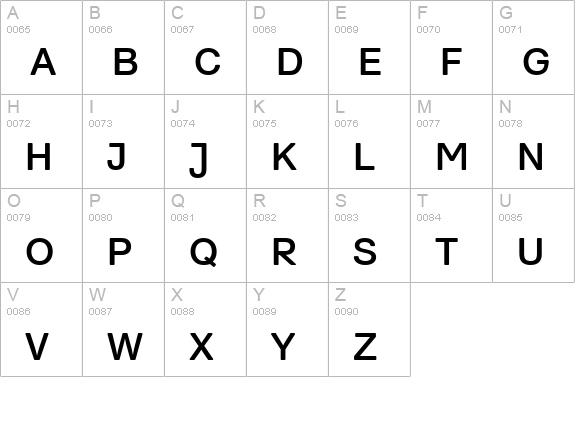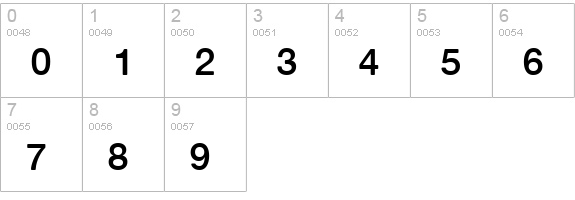
SchulVokalDotless Font Details
SchulVokalDotless font is a modern and stylish typeface that is perfect for adding a touch of sophistication to your designs. This font features clean lines, smooth curves, and a unique dotless design that sets it apart from other fonts. SchulVokalDotless font is not only visually appealing, but it also offers excellent readability, making it ideal for a wide range of applications. Whether you're creating a logo, designing a website, or crafting a print advertisement, this font will ensure that your message is communicated effectively and effortlessly. One of the best things about SchulVokalDotless font is that it is free. That's right, you can download this amazing font at absolutely no cost from FontsMarket.com. This means that you can enhance your designs with a high-quality, professional-looking font without breaking the bank. With its versatility and elegance, SchulVokalDotless font is suitable for both personal and commercial projects. Whether you're a graphic designer, a small business owner, or a student working on a school project, this font will elevate your work to new heights. So why wait? Download SchulVokalDotless font for free at FontsMarket.com and start creating eye-catching designs that will leave a lasting impression. With this font in your toolkit, you'll have the power to captivate your audience and make your message truly stand out.